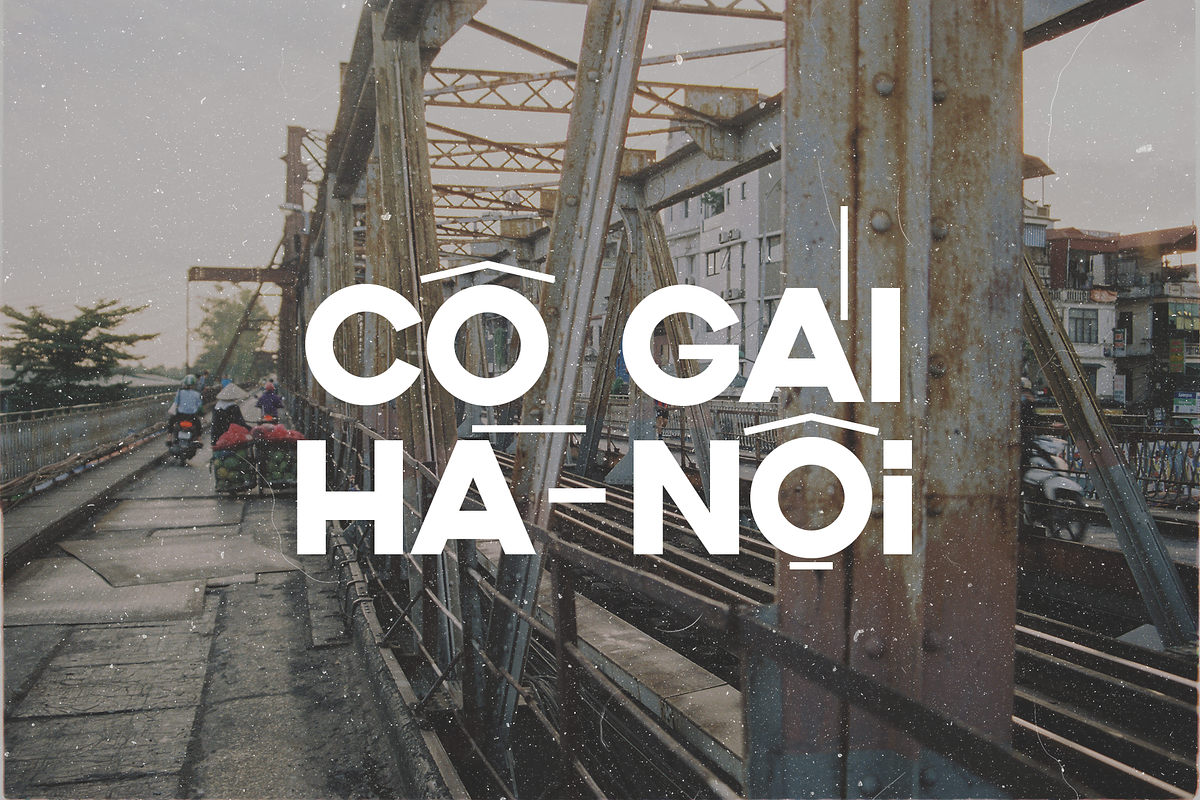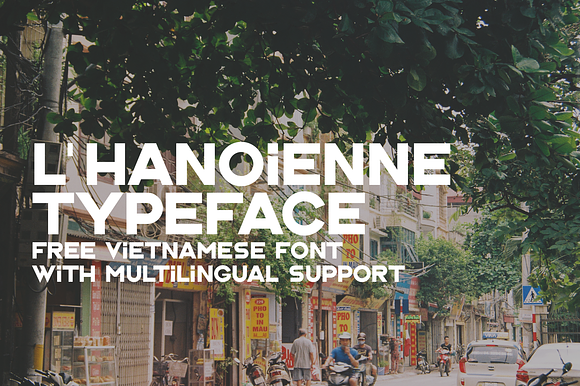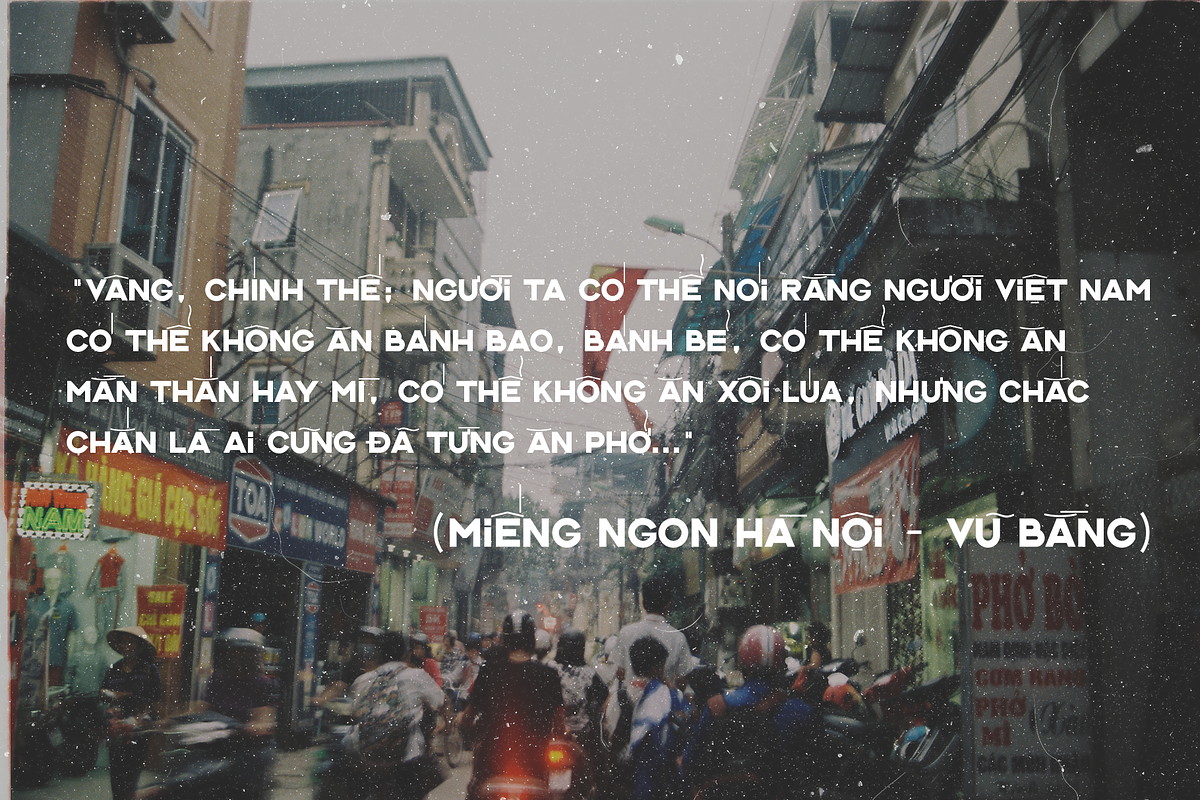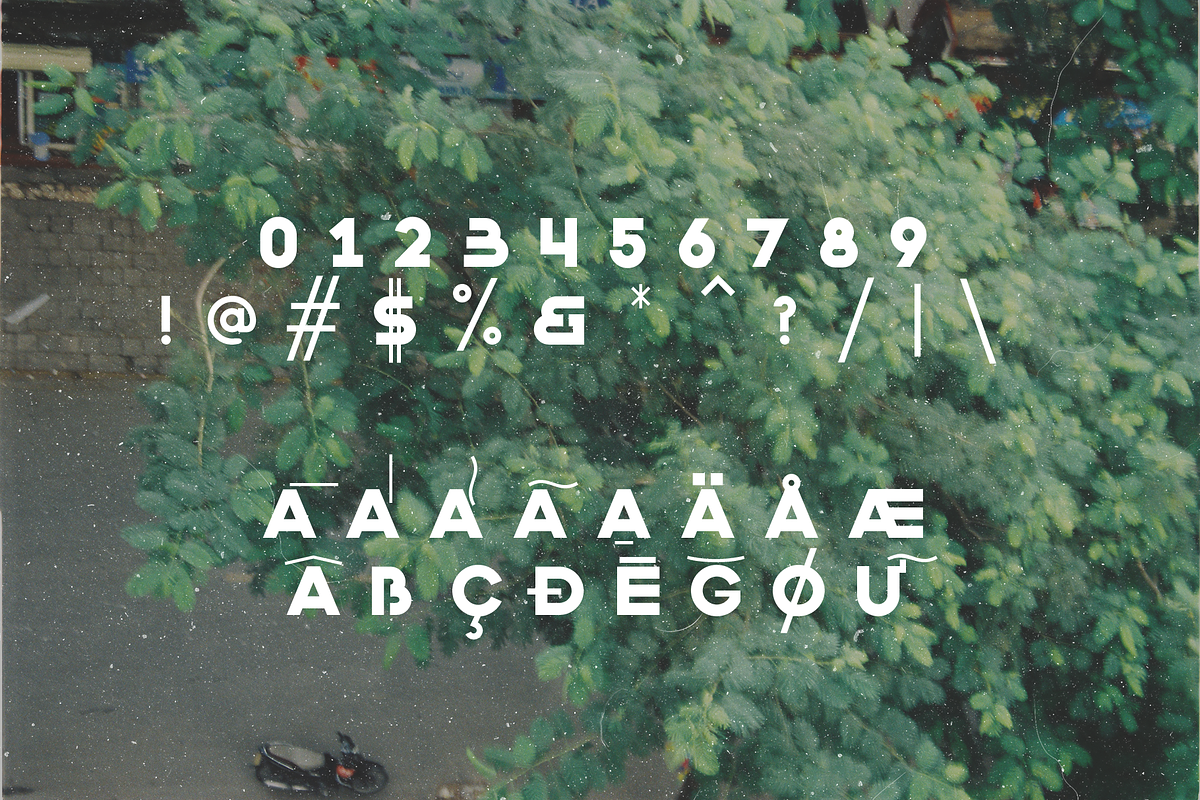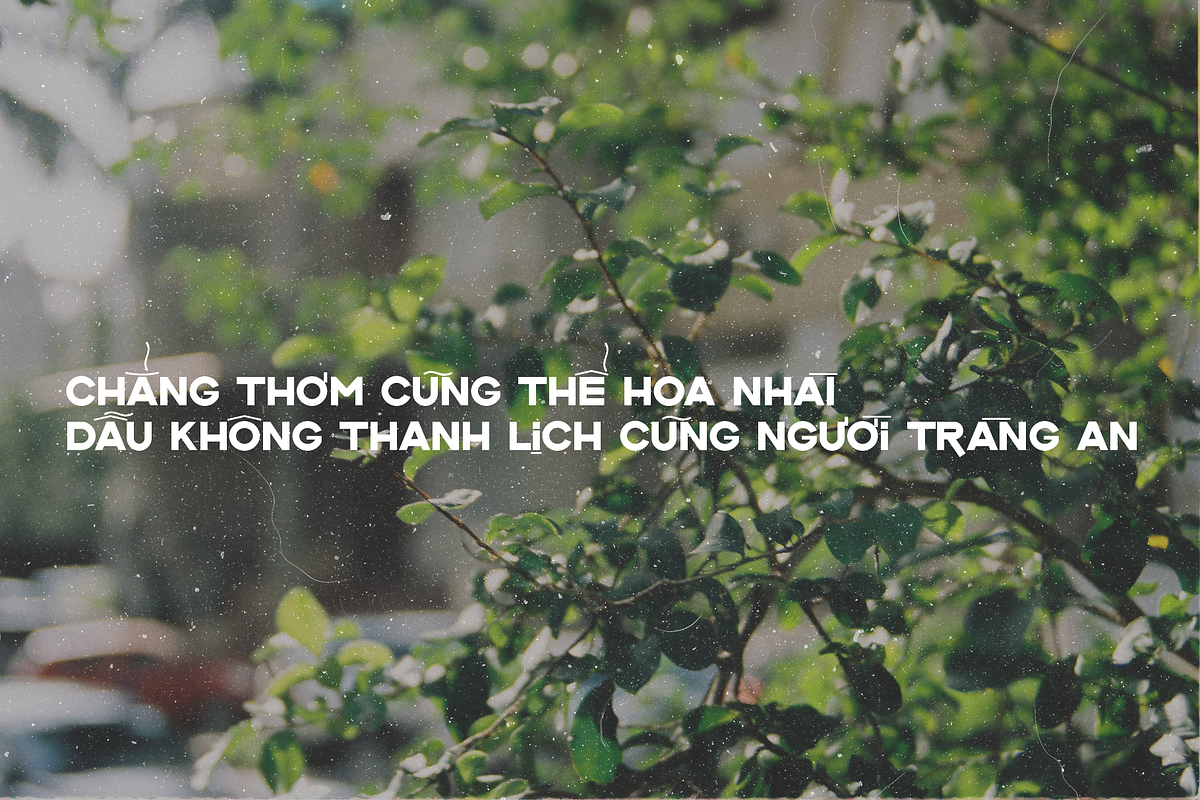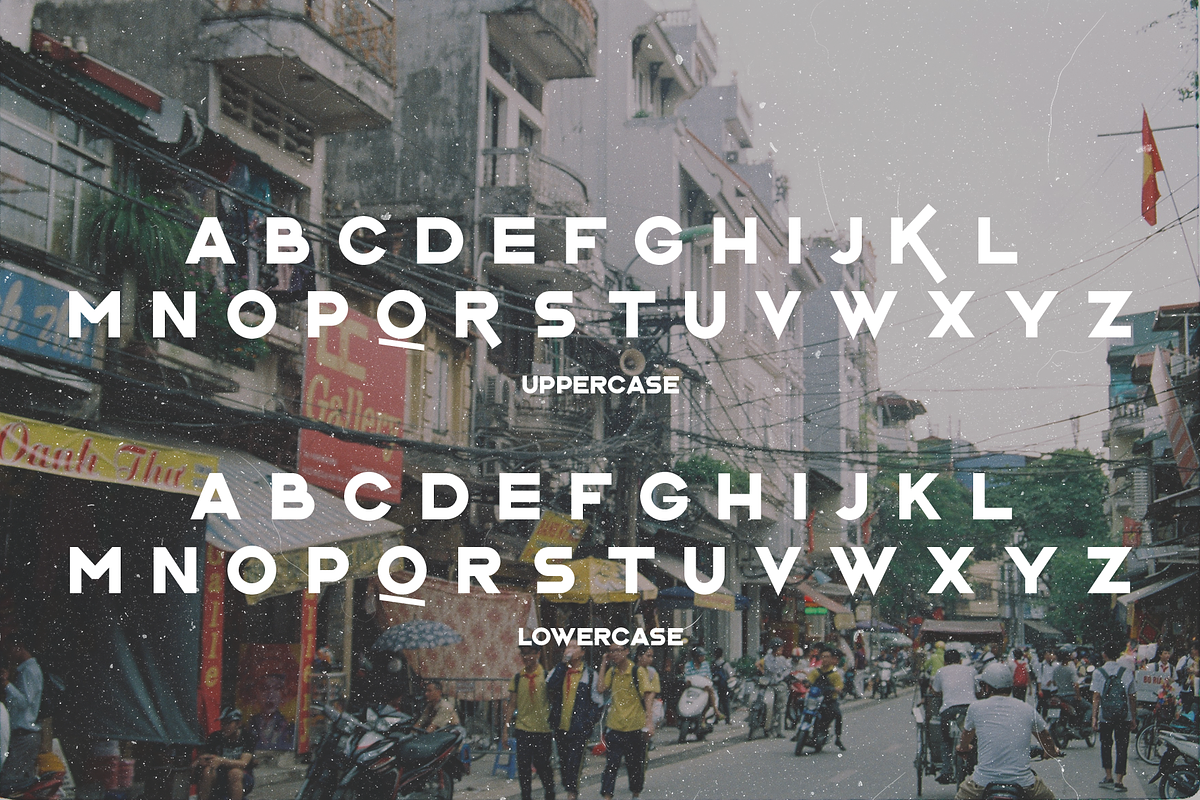
L'Hanoienne Typeface
L'Hanoienne (tiếng Việt: cô gái Hà Nội, English: Hanoi Lady) is a typeface created by Manh Nguyen, a type designer based in Vietnam. In an effort of bringing back the old style yet futuristic vibes of hand-painting retro panels and banners which are iconic in a long time in Vietnam street in 20th century, after the famous Classique Saigon, Manh Nguyen decided to create another typeface to paying homage to another city of his homeland. The project also resembles the vibes of vintage by using analogue photos shot by Manh himself, right at the city on the font name. L'Hanoienne, despite of sharing the same diacritic style and type anatomy with her font brother Classique Saigon, still has some great difference to affect the reading experience of users.Constructed as a geometric modern sans serif like Classique Saigon, nonetheless, L'Hanoienne has a lighter contrast and more delicate anatomy which fits the discreet and gentle Far East beauty of a Tonkin woman in the 20th century. Though being a display type, L'Hanoienne shows great vintage vibes when using as body text in Vietnamese. L'Hanoienne is now available on Creative Market and a free demo font could be also download in the end of the project page. Noted that the demo font can only use for con-commercial projects but the full version of OTF font with fully multilingual-supported can be used in any project as the desktop font.